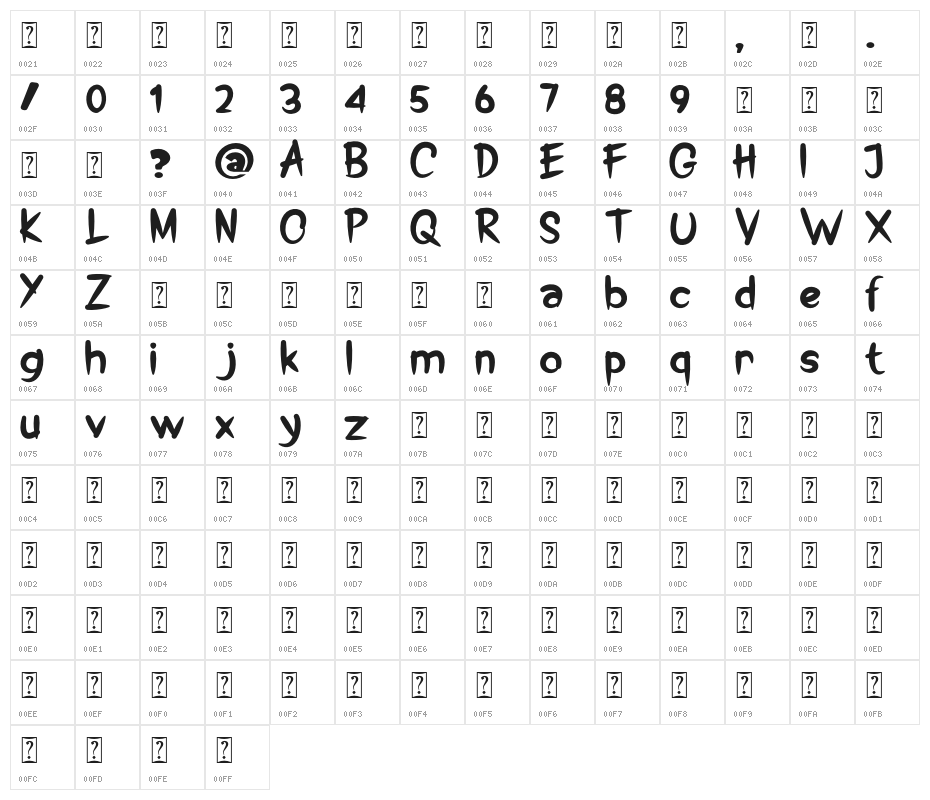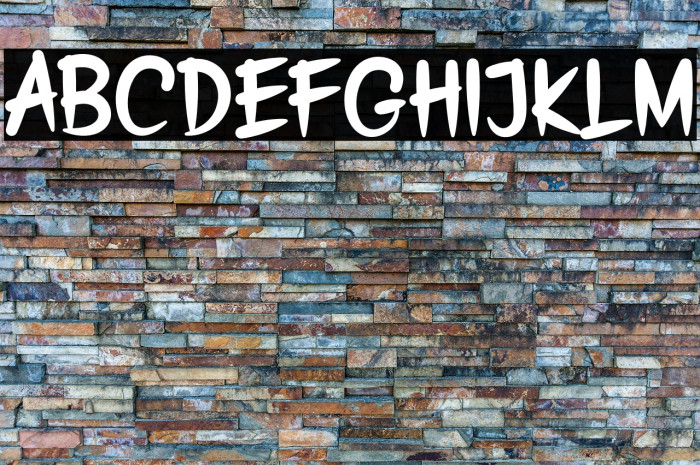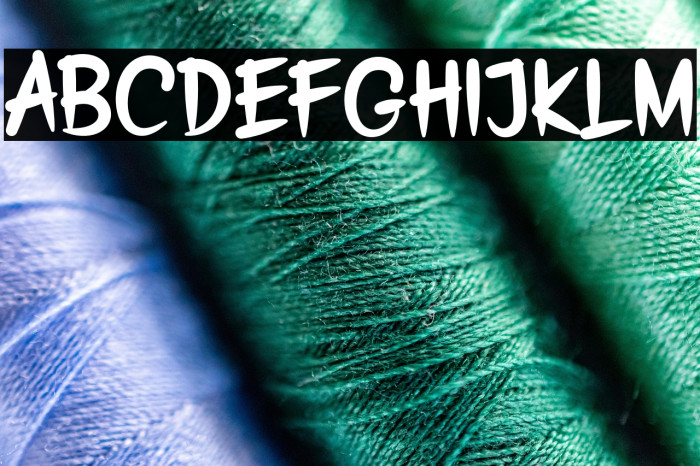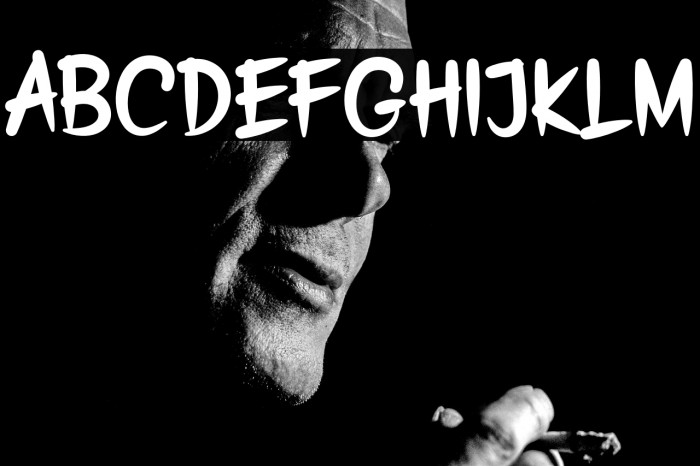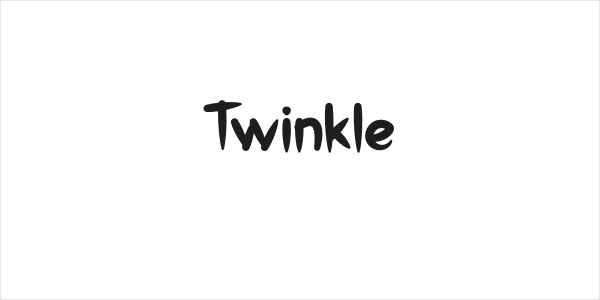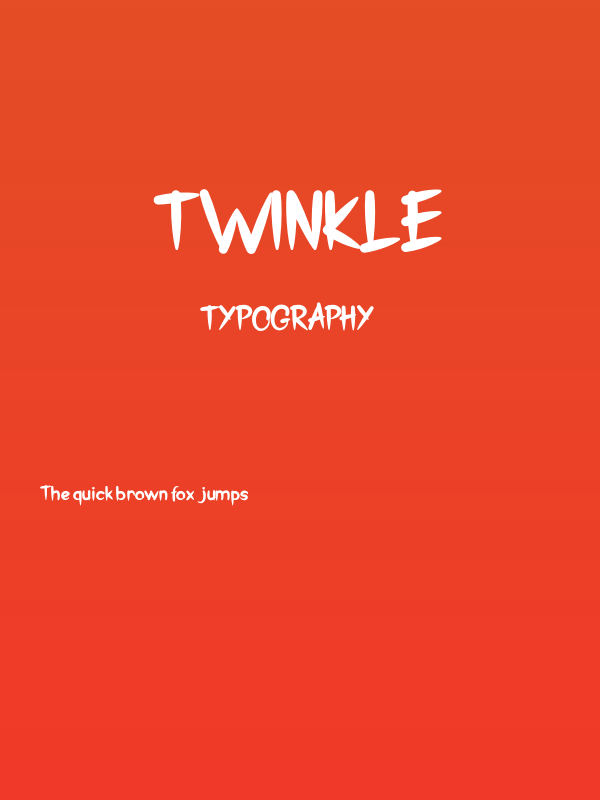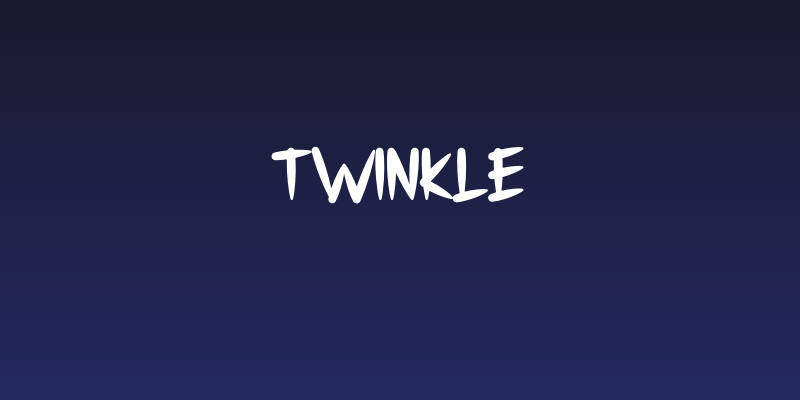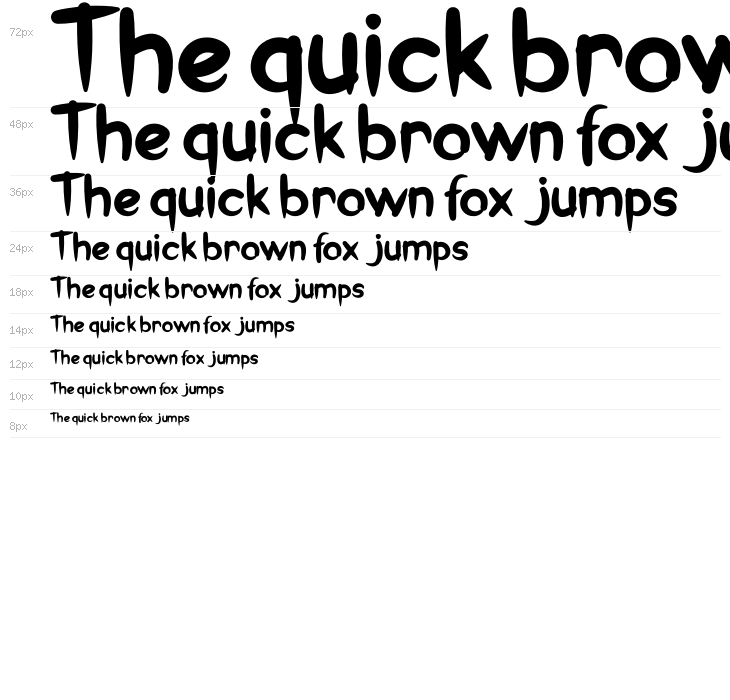
Twinkle Font
| Gesamtstil | Playful |
| Anwendungsfall | Headlines, Logos, Informal Text |
| Vorgeschlagene Projekte | Ideal for children's books, playful branding, greeting cards, and informal posters. |